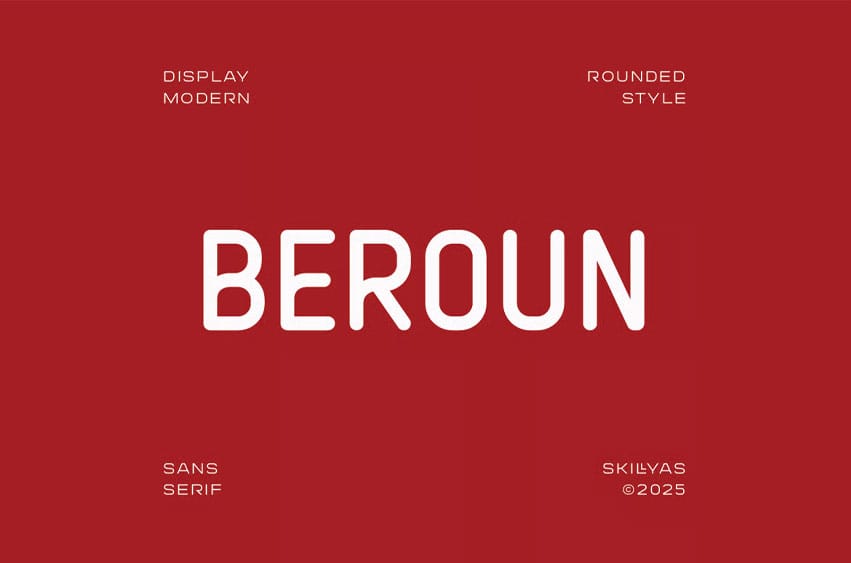
Beroun Font is a Modern Display Sans-serif font with Smooth, Rounded Edges and a Friendly, Approachable Feel. It combines clarity with playful elegance and is perfect for branding, UI design, packaging, and creative projects.
Character:
- Uppercase & Lowercase Letters
- Punctuation ​​& Symbols Support
- PUA encoded Range Standard Alternative Style
- Ligature (Standard and Discretionary)